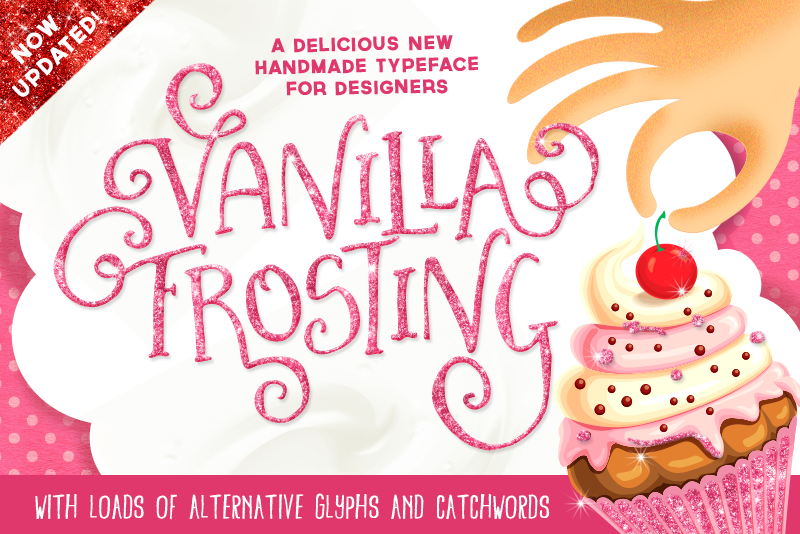
Vanilla Frosting Typeface
INTRODUCING VANILLA FROSTING - A fancy fun new hand-illustrated typeface - made with oodles of love, swashes, alternates and catchwords!
I just love hand illustrated typography designs, I literally could doodle for hours - so to spare you some time, I've put my doodled lettering in a carefully-crafted, handy new single typeface for you to whip out when you are in a typographical quandary.
It has loads of alternates,swashes and catchwords - It has been designed with intention to create very unique and one-of-a-kind branding/designs - Be sure to click on the second preview and scroll down to see all the extras you get.
AND MORE.... A little juicy bonus due to popular request... the sparkly glitter effects that I used in my previews have now being added to this pack - in the form of PS Styles ....so enjoy!